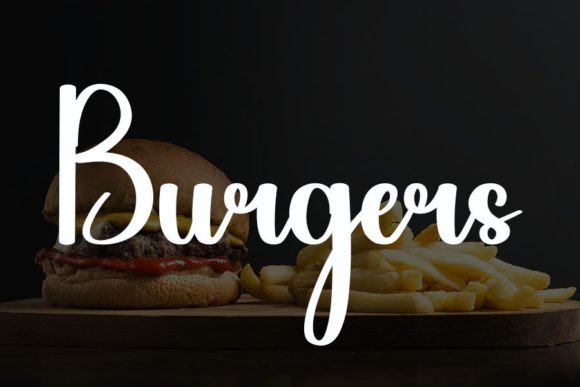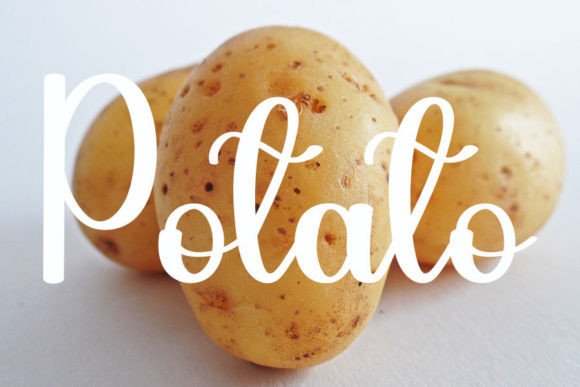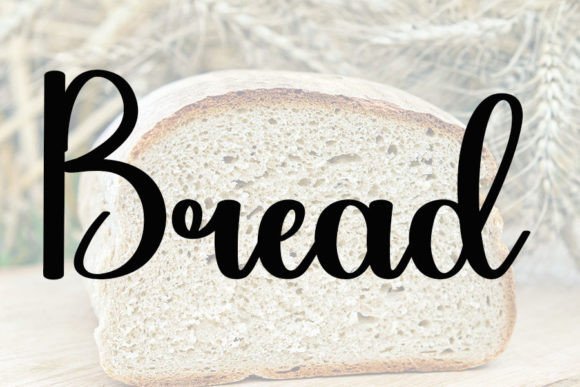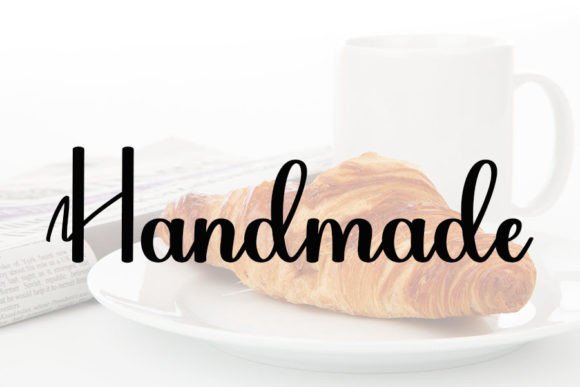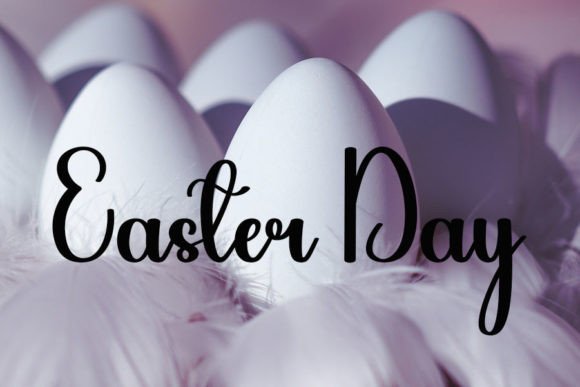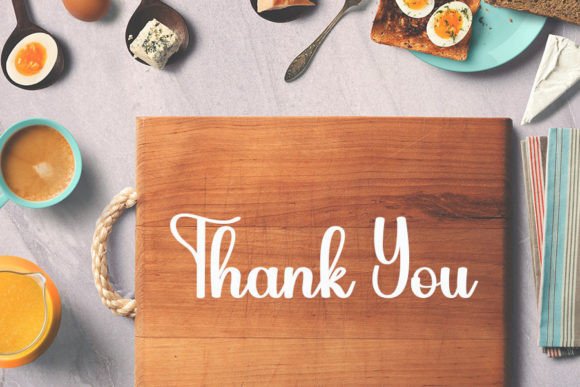
Filling Font: Elevate Your Designs with Elegance and Timeless Style
In the world of typography, a font can make or break a design. For designers and crafters looking to add a touch of sophistication and elegance to their projects, the Filling Font is an excellent choice. This beautiful handwritten font is characterized by its neat and elegant touch, making it perfect for a wide range of applications. In this article, we’ll explore the unique features of the Filling Font, its benefits, and how you can use it to create spectacular designs that stand out.
The Unique Charm of Filling Font
Filling Font is a handwritten font that exudes a sense of refinement and poise. Its incredibly distinct and timeless style is sure to capture the hearts of designers and crafters alike. The font’s elegant touch is evident in its smooth, flowing lines and carefully crafted letterforms. Whether you’re working on a branding project, a wedding invitation, or a digital product, Filling Font is sure to add a touch of sophistication and glamour.
Key Features of Filling Font
- Handwritten with love: Filling Font is a carefully crafted handwritten font, imbuing it with a personal and human touch.
- Elegant and refined: The font’s elegant lines and refined letterforms make it perfect for designs that require a touch of sophistication.
- Timeless style: Filling Font’s classic style ensures that your designs will remain relevant and stylish for years to come.
- Distinct and recognizable: The font’s unique features make it stand out from other fonts, ensuring that your designs will be noticed.
Benefits of Using Filling Font
So, why choose Filling Font for your design projects? Here are just a few benefits of using this beautiful font:
- Enhance your brand’s image: Filling Font is perfect for branding projects, adding a touch of elegance and sophistication to your logo, website, or marketing materials.
- Create stunning invitations: The font’s refined style makes it ideal for wedding invitations, party invites, and other special occasions.
- Elevate your digital products: Filling Font is perfect for digital products, such as ebooks, courses, and software, adding a touch of professionalism and style.
- Stand out from the crowd: The font’s unique features ensure that your designs will stand out from the crowd, grabbing attention and making a lasting impression.
Tips for Using Filling Font
To get the most out of Filling Font, here are a few tips to keep in mind:
- Use it sparingly: Filling Font is a statement font, so use it sparingly to add emphasis and elegance to your designs.
- Pair it with complementary fonts: Combine Filling Font with complementary fonts to create a harmonious and visually appealing design.
- Experiment with colors and textures: Don’t be afraid to experiment with different colors and textures to add depth and interest to your designs.
In conclusion, Filling Font is a beautiful and elegant handwritten font that’s perfect for designers and crafters looking to add a touch of sophistication to their projects. Its unique features, timeless style, and versatility make it an excellent choice for a wide range of applications. Whether you’re working on a branding project, a wedding invitation, or a digital product, Filling Font is sure to elevate your designs and make them stand out. So why wait? Fall in love with Filling Font and start creating spectacular designs today!